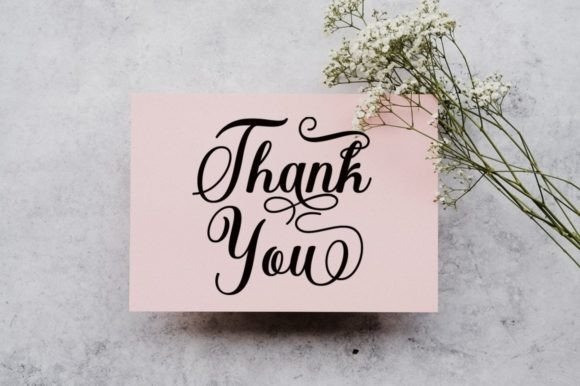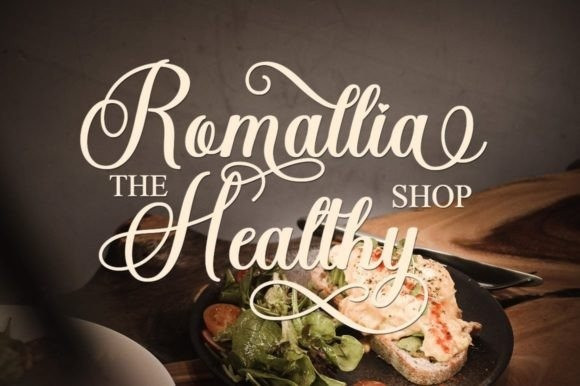
Belarya Font
Belarya Font is a modern handwritten font perfect for branding, wedding invitations, magazines, mugs, business cards, quotes, posters, and many more. Add it to your creative projects, and they will stand out from the crowd!